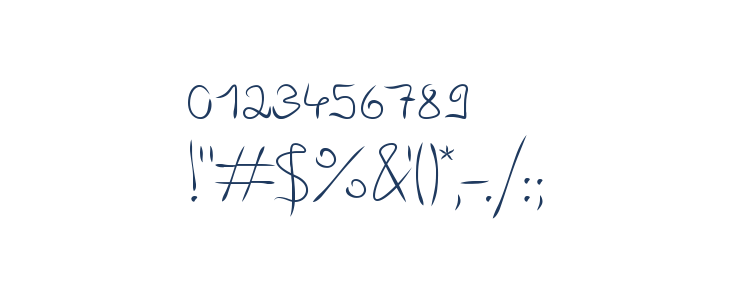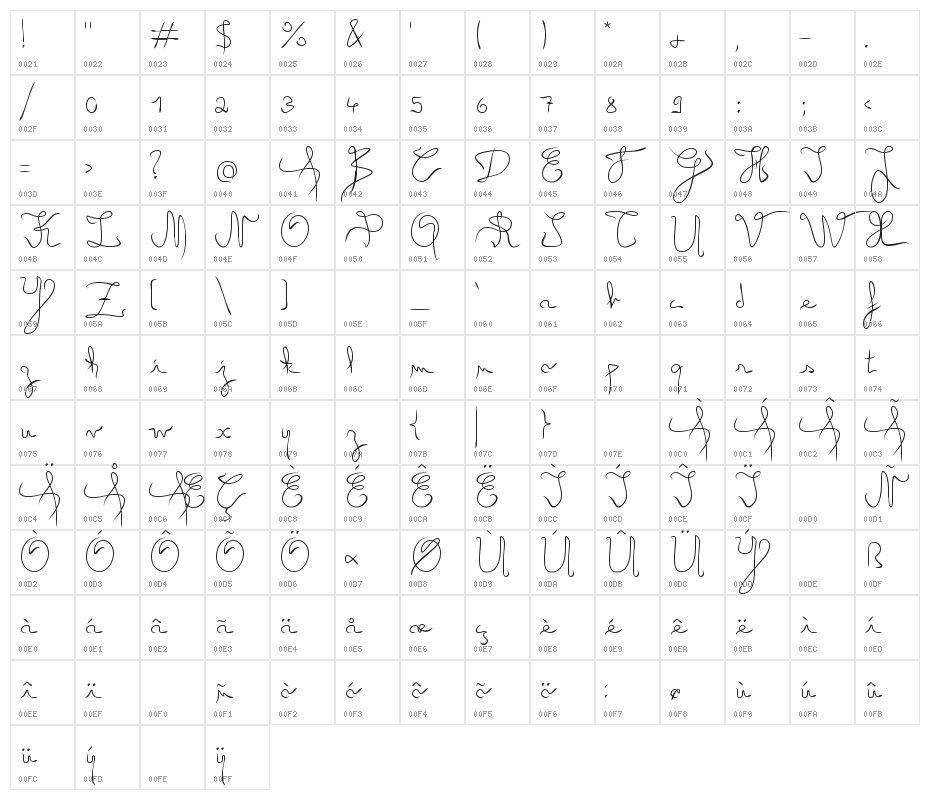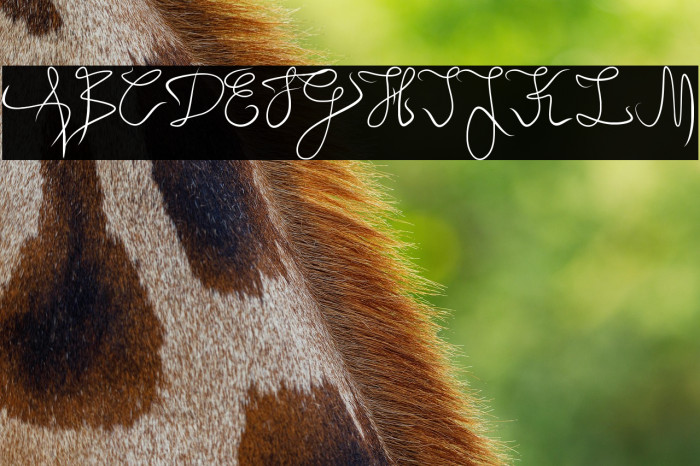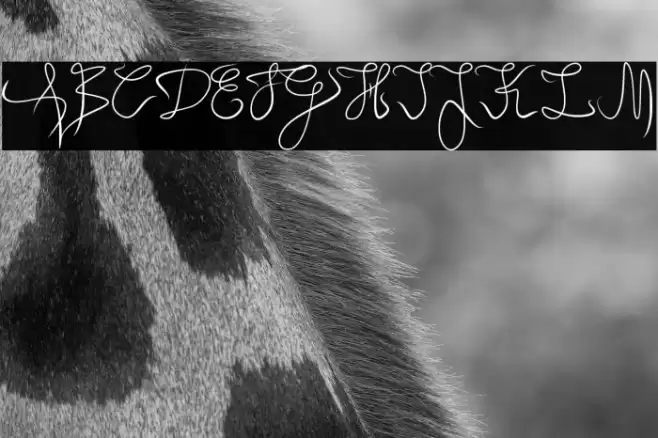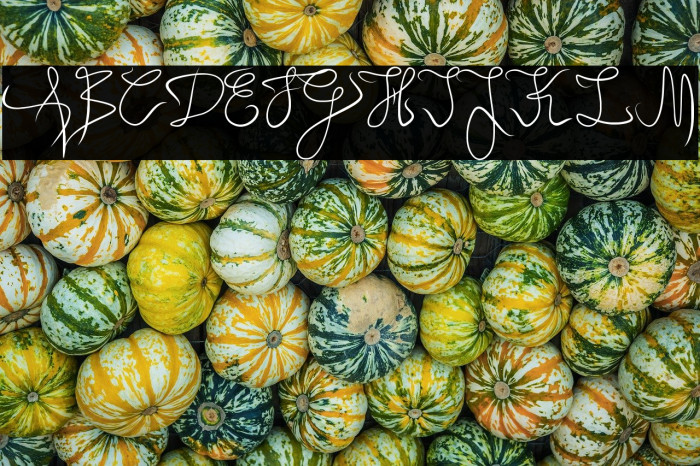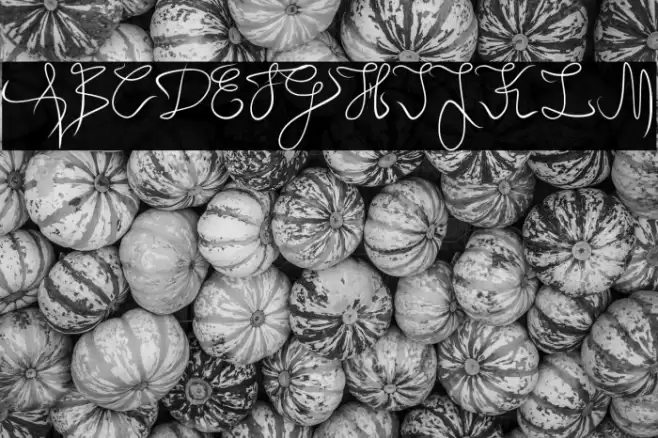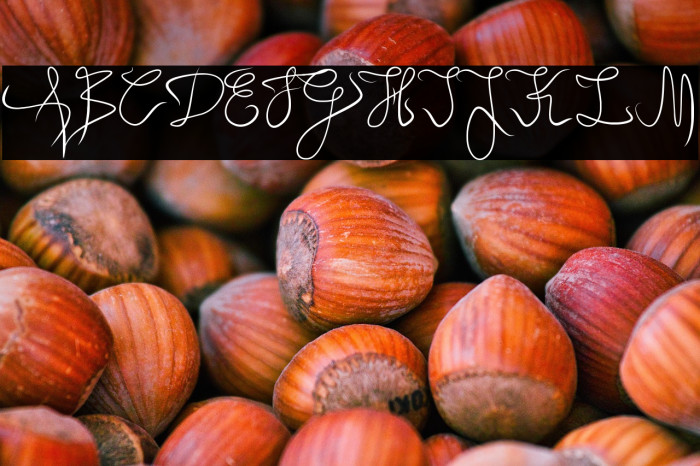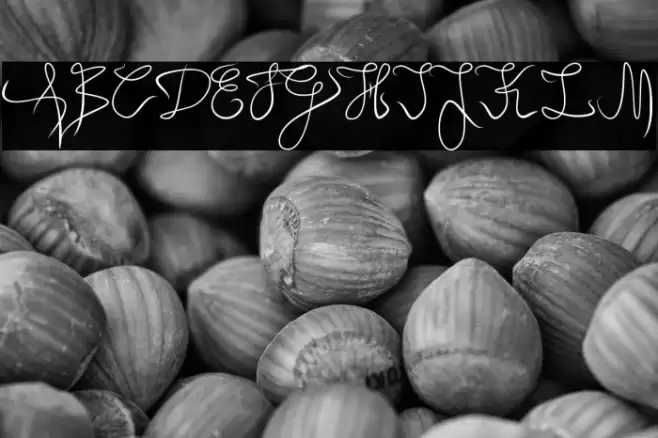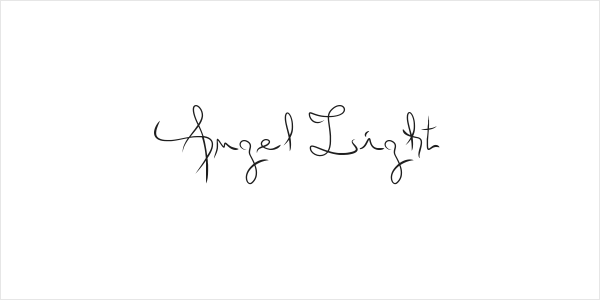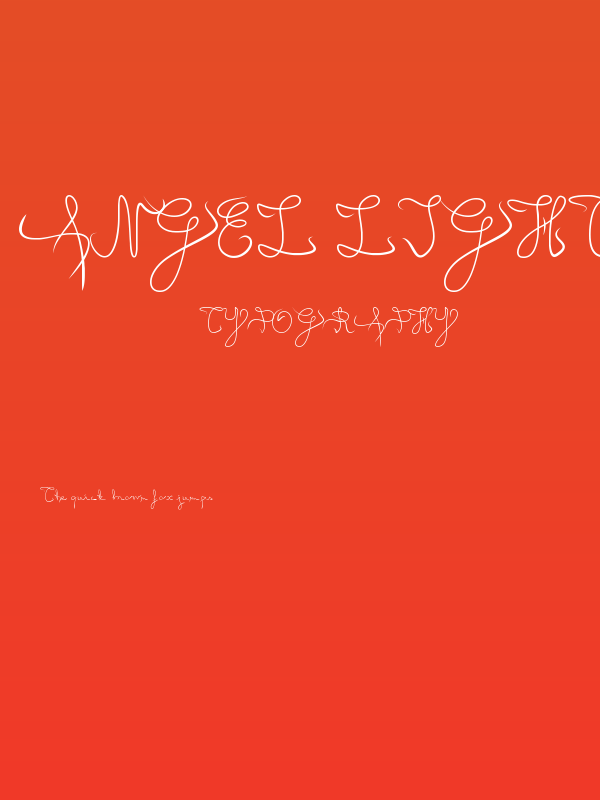
Angel Light Font
Angel Light Description
This font features an elegant and flowing script style, characterized by its smooth, continuous strokes that mimic the fluidity of handwriting. The uppercase letters exhibit a graceful loop and curve, adding a touch of sophistication and charm. The lowercase letters maintain a consistent style, with elongated ascenders and descenders that enhance its decorative appeal. The numerals and special characters are crafted with the same attention to detail, ensuring a cohesive look across all characters. This font exudes a sense of elegance and creativity, making it ideal for projects that require a personal and artistic touch.
Use CaseLogos, Invitations, Artistic projects
Proposed ProjectsIdeal for wedding invitations, greeting cards, personal branding, and artistic projects.